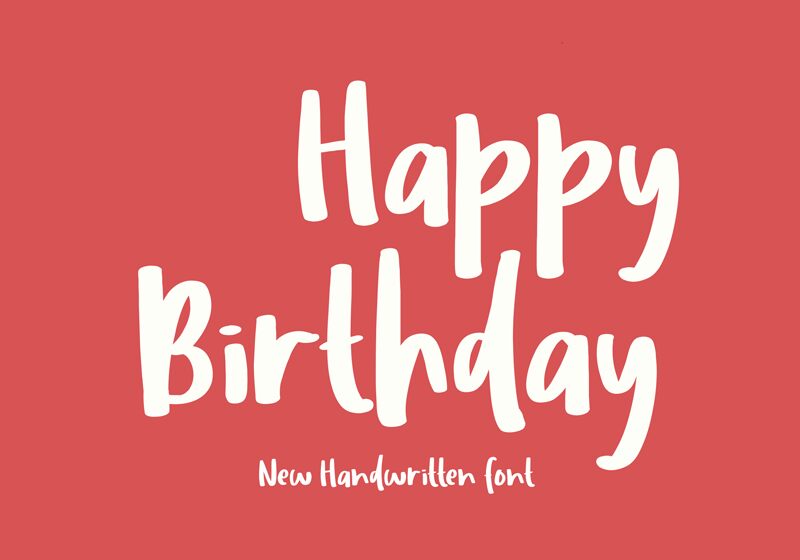
Happy birthday
Happy Birthday, a charming handwritten font crafted by the talented Erlina Graphic. With its playful strokes and marker-like style, this semi-condensed typeface adds a whimsical touch to any project. Perfect for creating birthday cards, party invitations, or personalized gifts, Happy Birthday brings joy and celebration to life. Let your creativity flow as you design banners, posters, or even scrapbooking layouts with this delightful font. Embrace the festive spirit and make every birthday unforgettable with Happy Birthday – the go-to choice for all your joyful projects!